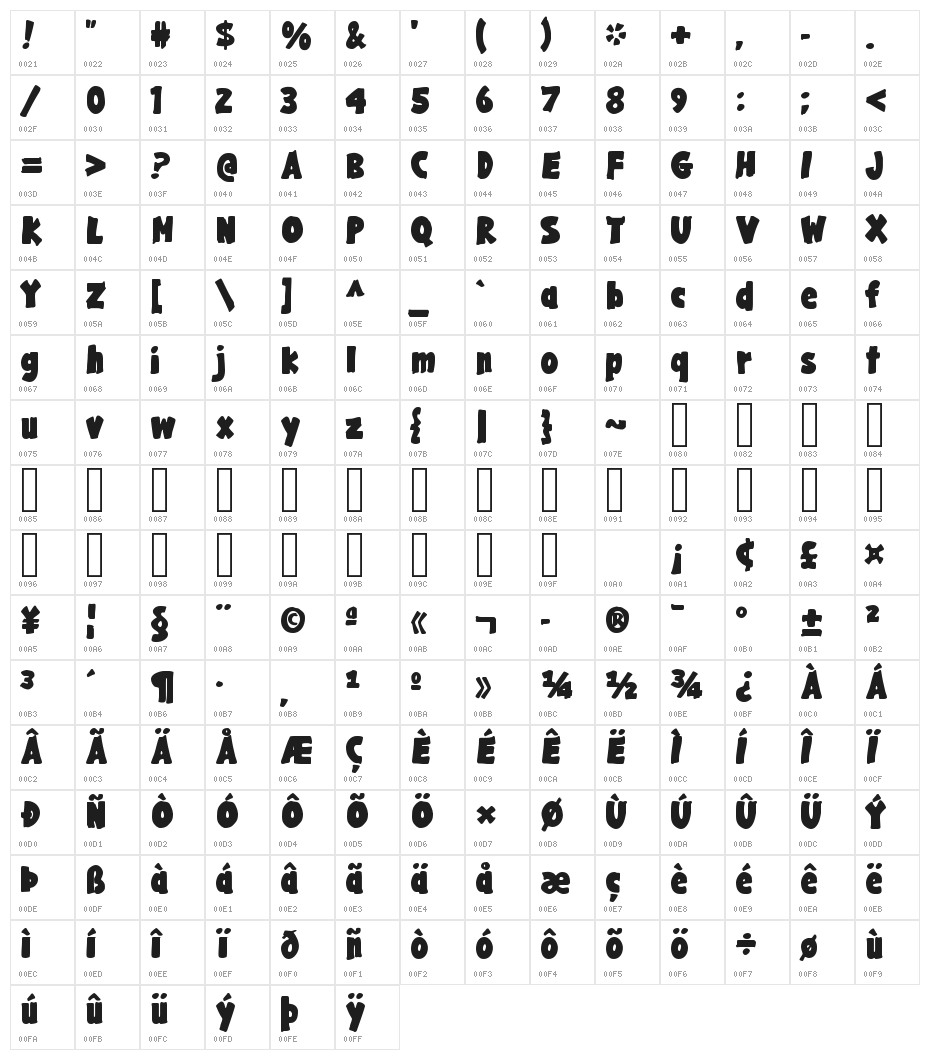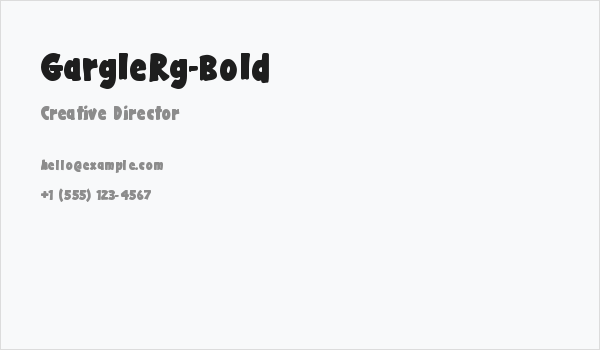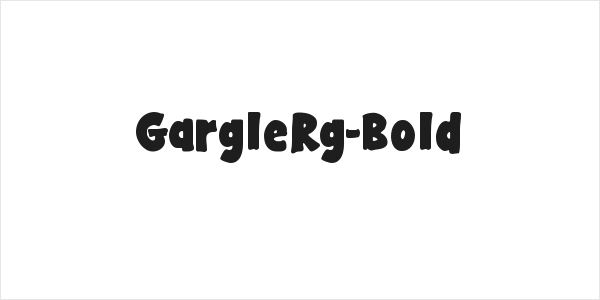
GargleRg-Bold Font
GargleRg-Bold Description
This bold and playful font features thick, rounded characters with a whimsical and cartoonish style. The letters are slightly irregular, giving them a hand-drawn appearance that adds a sense of fun and creativity. The font maintains a consistent weight throughout, with no significant variation in stroke thickness, resulting in a low contrast. The characters are closely spaced, creating a compact and energetic look. This font is ideal for projects that require a lively and informal touch, such as children's books, comic strips, or playful branding materials.
| Overall Style | Playful, Cartoonish |
| Proposed Projects | Children's books, comic strips, playful branding, posters, and party invitations. |